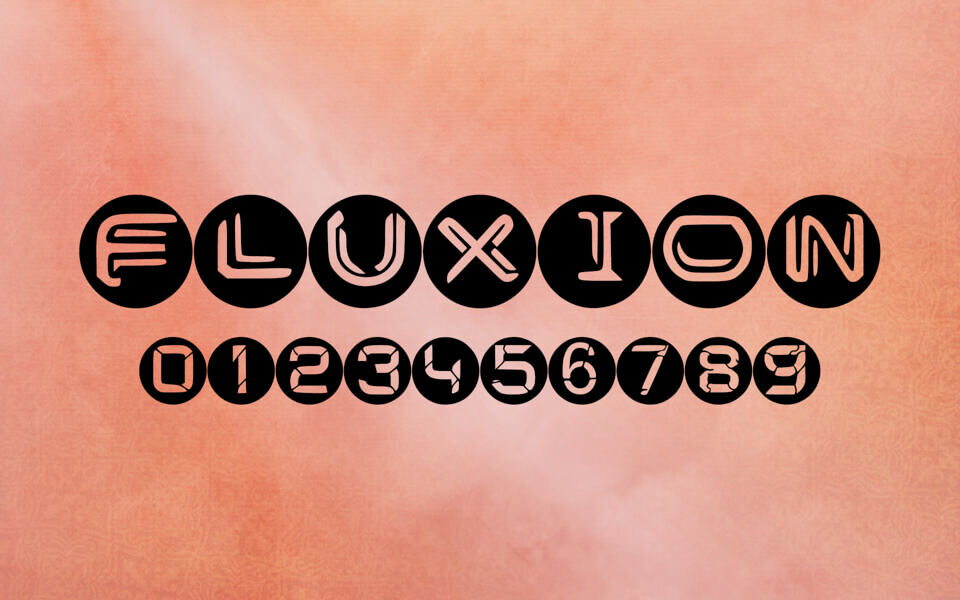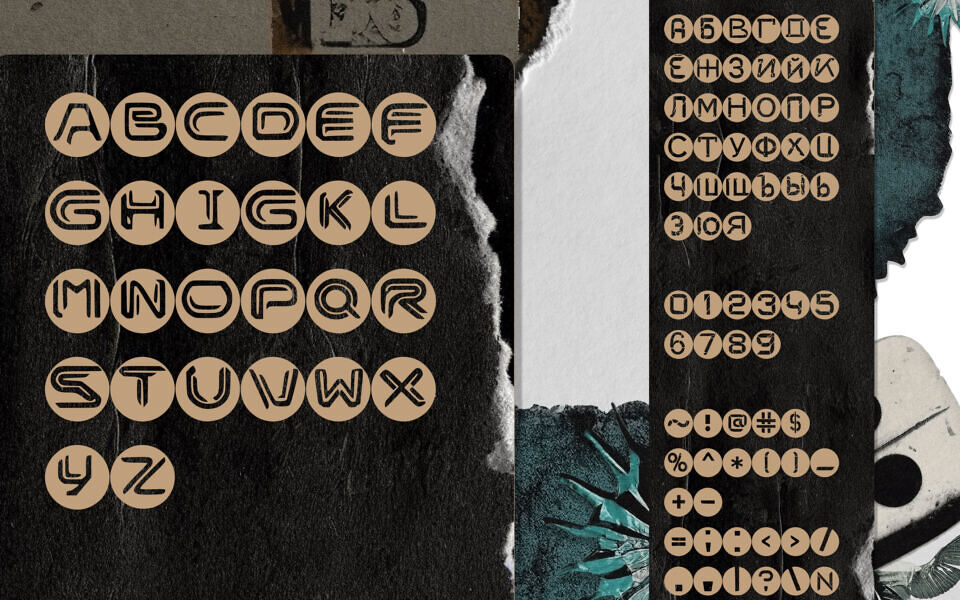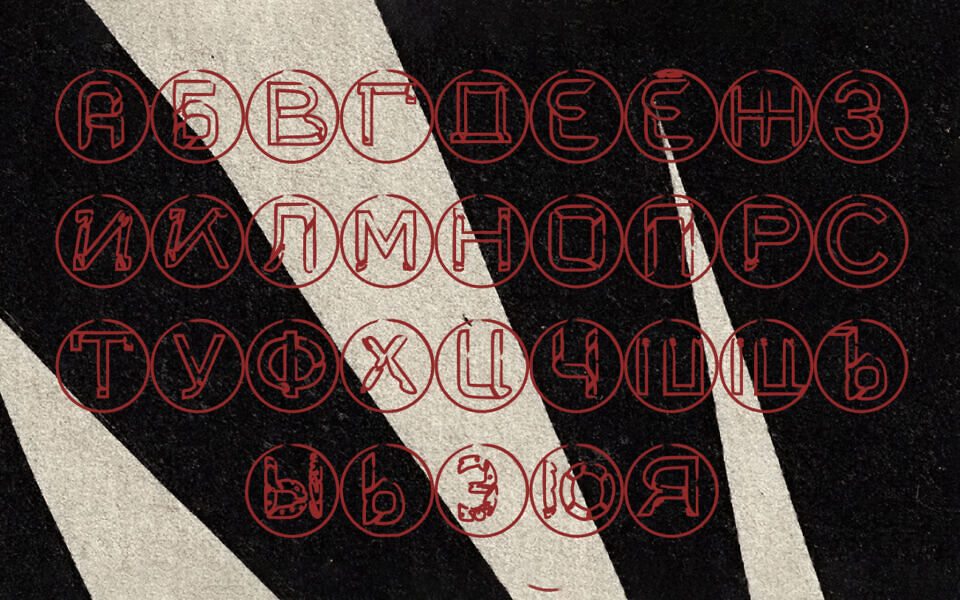
Fluxion is a typeface inspired by the perfection of the circle — a universal symbol of harmony, infinity, and completeness. Yet, when touched by the human hand, this ideal form transforms. Subtle imperfections—curves, cracks, and organic deviations—bring geometry to life.
Fluxion (from Latin fluxus, meaning “flow”) captures this tension between precision and imperfection. Each letter appears to move, breathe, and evolve, balancing structure with spontaneity. This first experiment in type design celebrates the beauty of the imperfect, creating a living, flowing, and unified form.